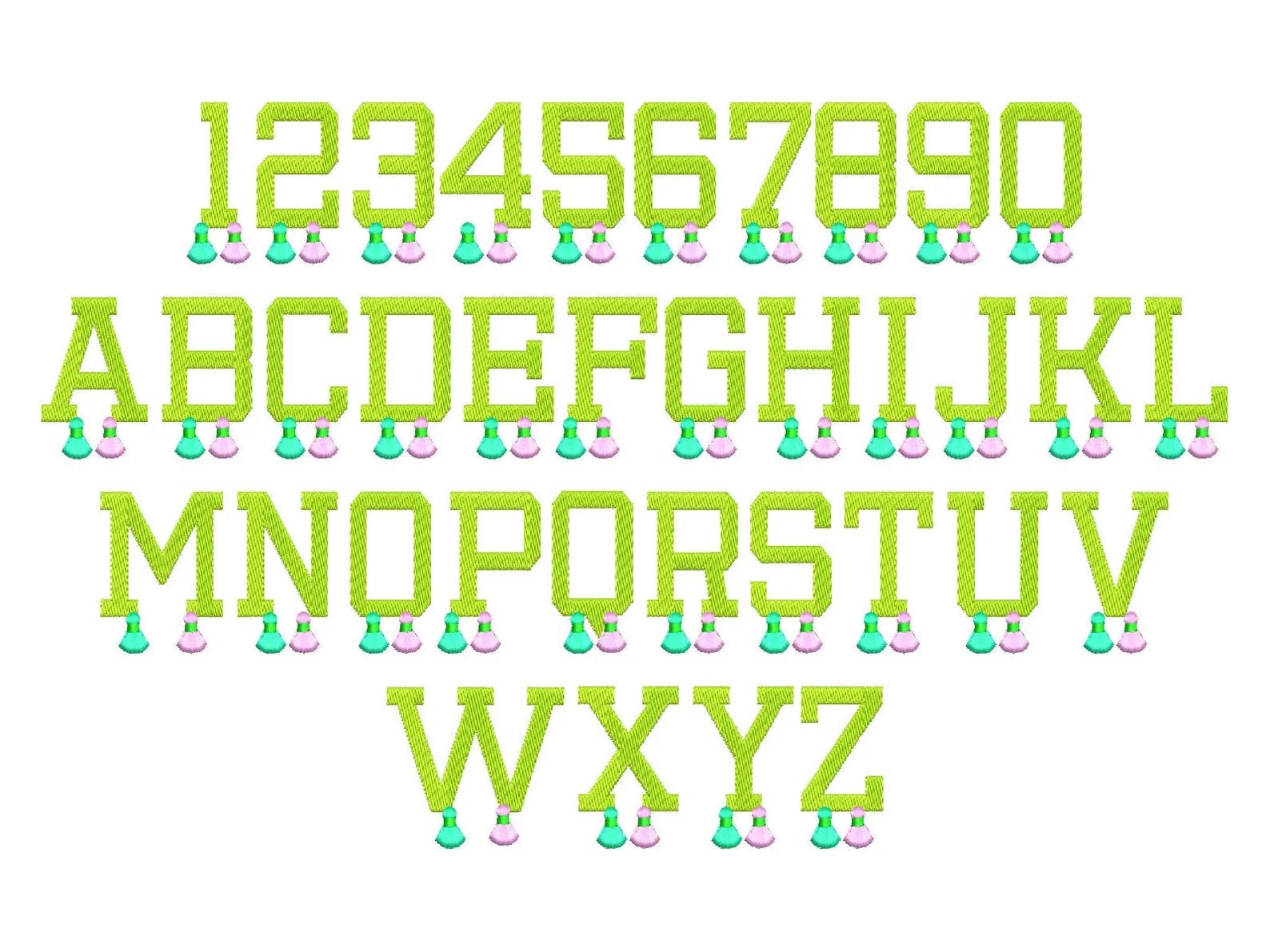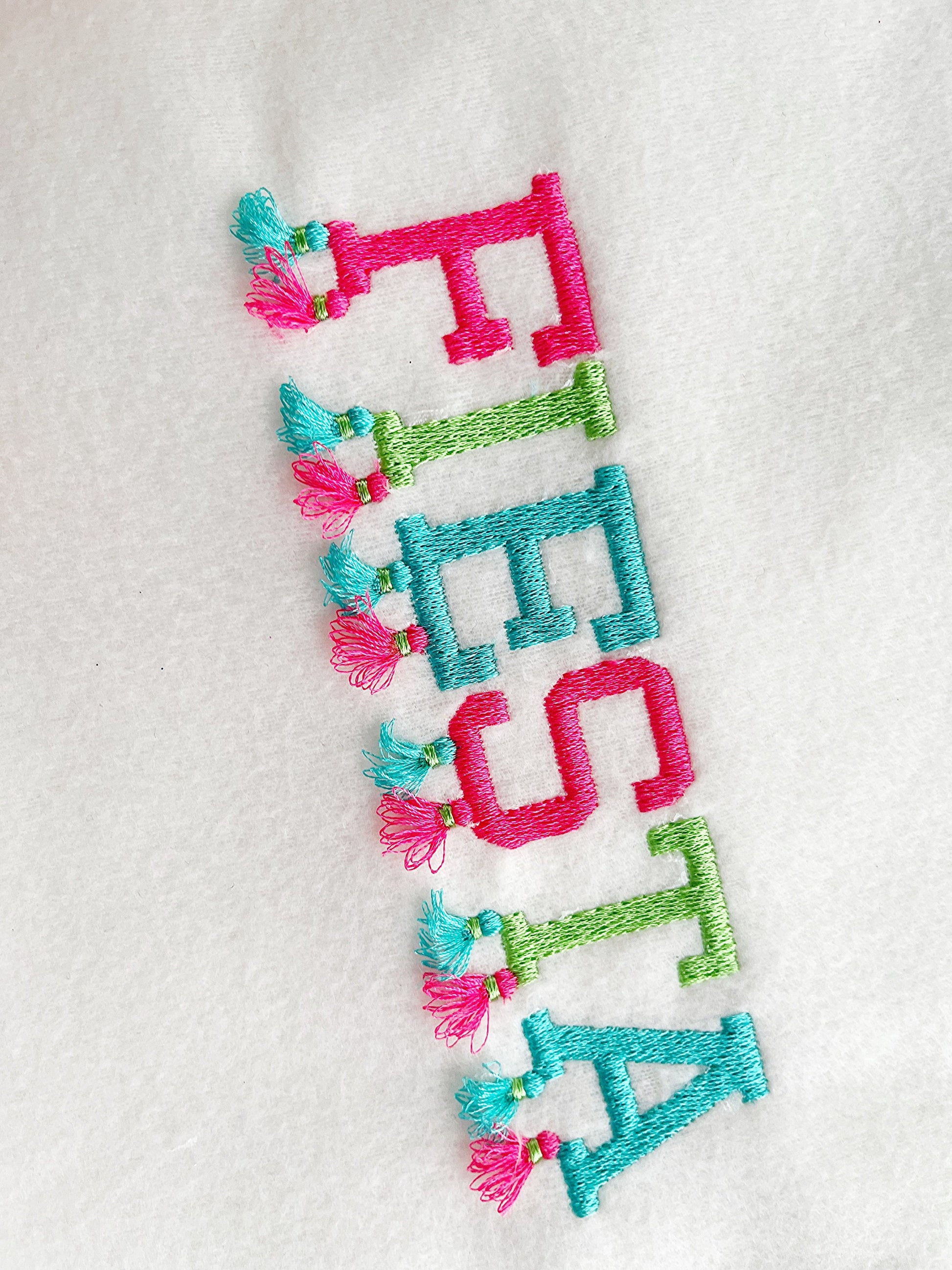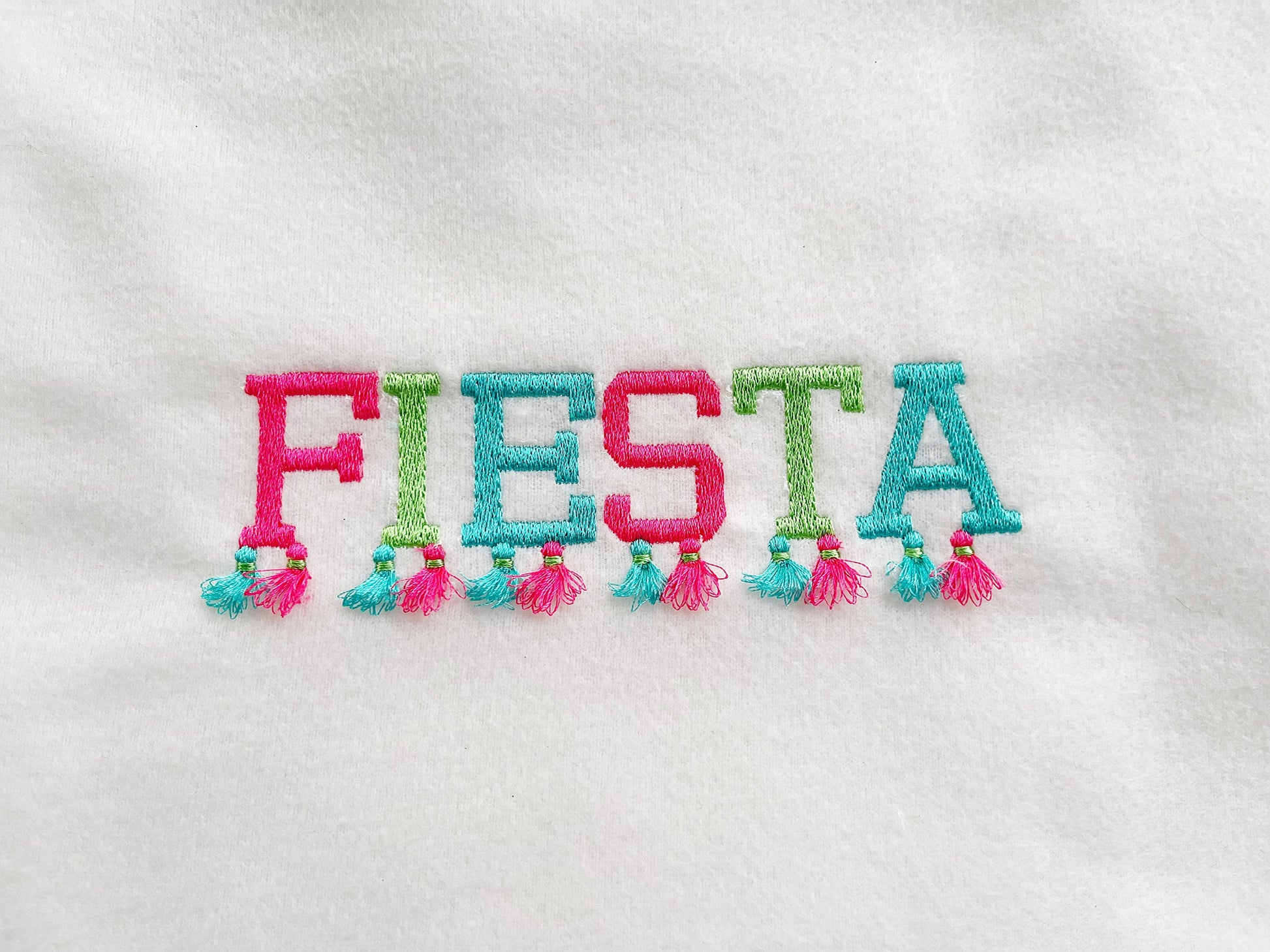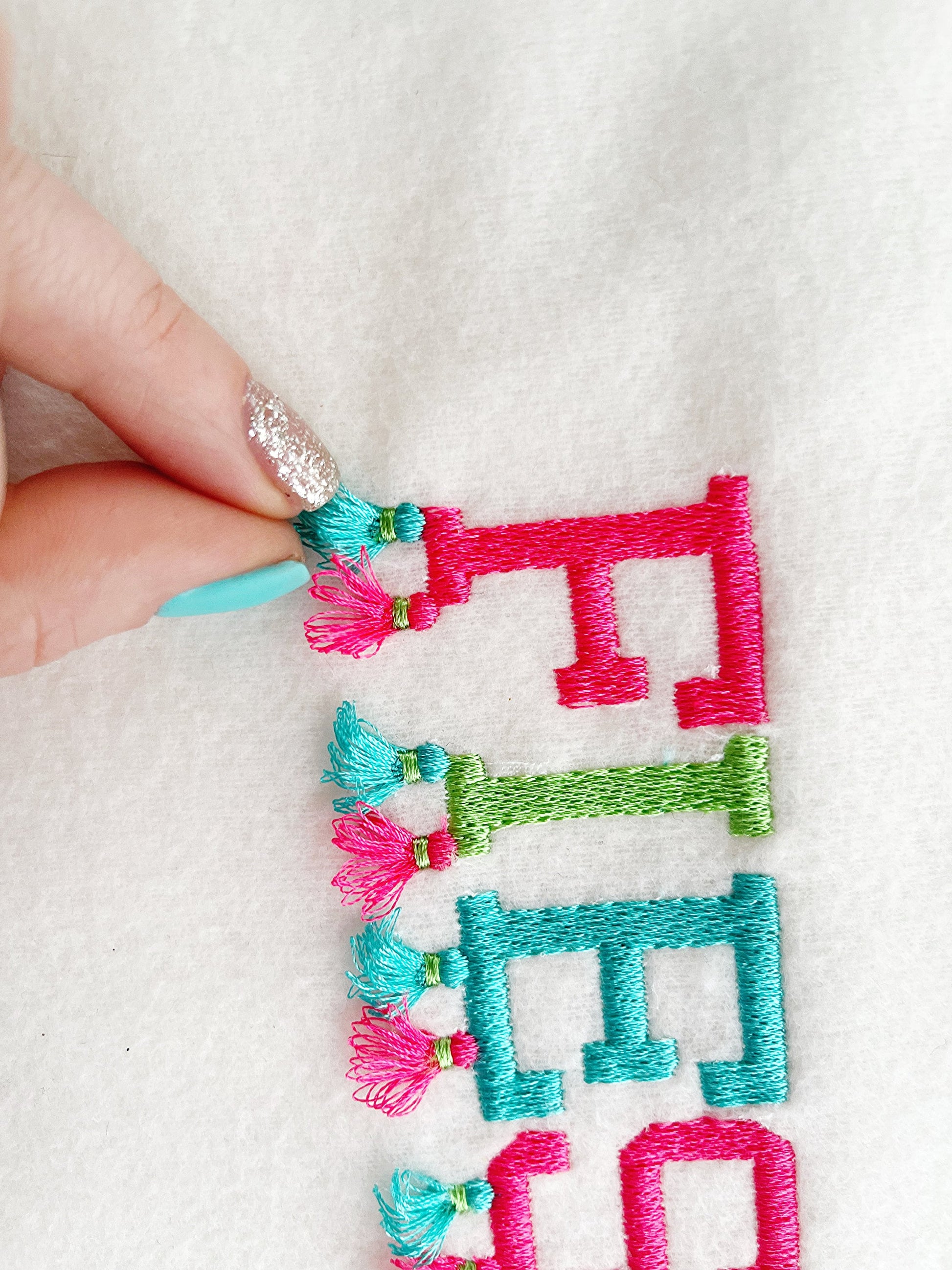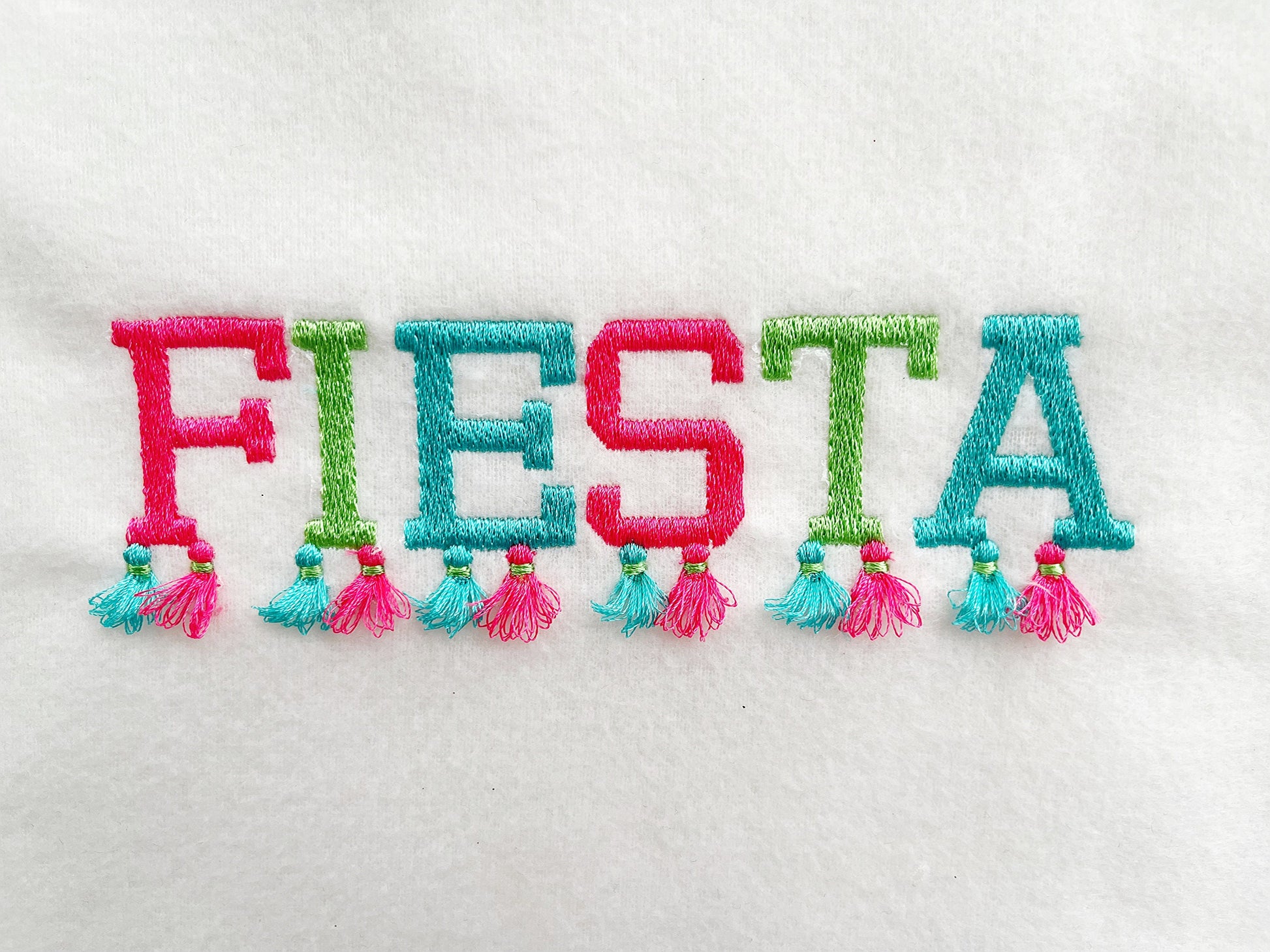
Fringed Summer Font with Tassels
Included: Uppercase A-Z, Numbers 0-9
A fluffy fringed summer font with tassels. Pretty for girls' names and monograms on shirts, pillows and bags.
Uppercase letters A to Z and numbers 0 to 9. Six sizes: 1.5, 1.8, 2.1, 2.2, 2.6 and 3 inches. A holding seam keeps the fringe in place.
• Fringed tassel font
• Uppercase A to Z, numbers 0 to 9
• 6 sizes, 1.5 to 3 in